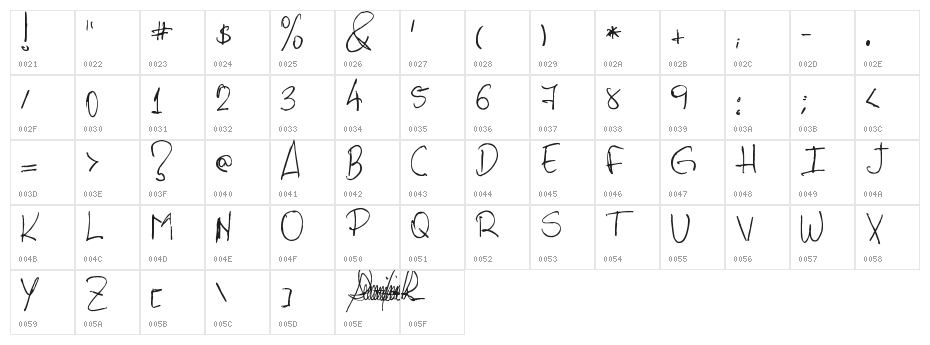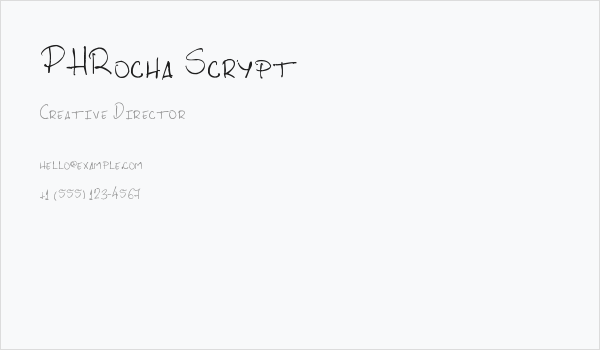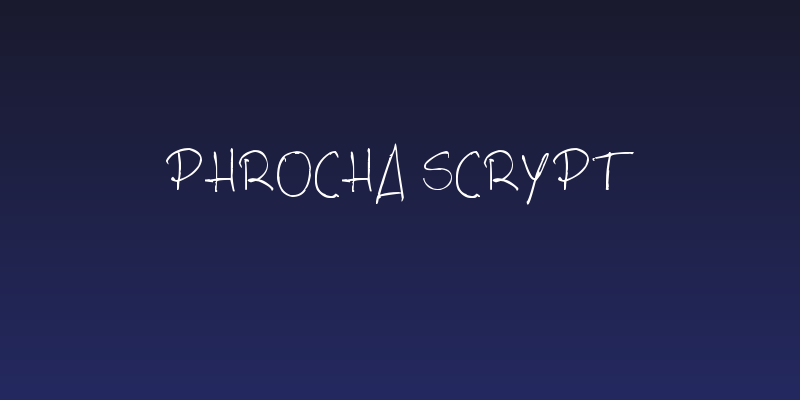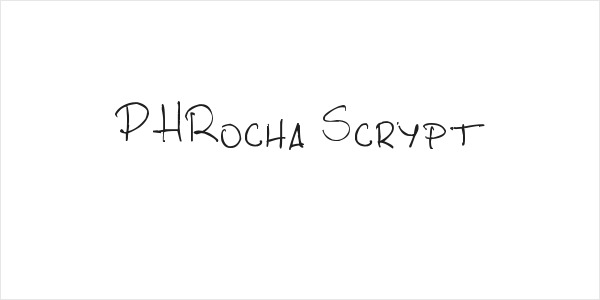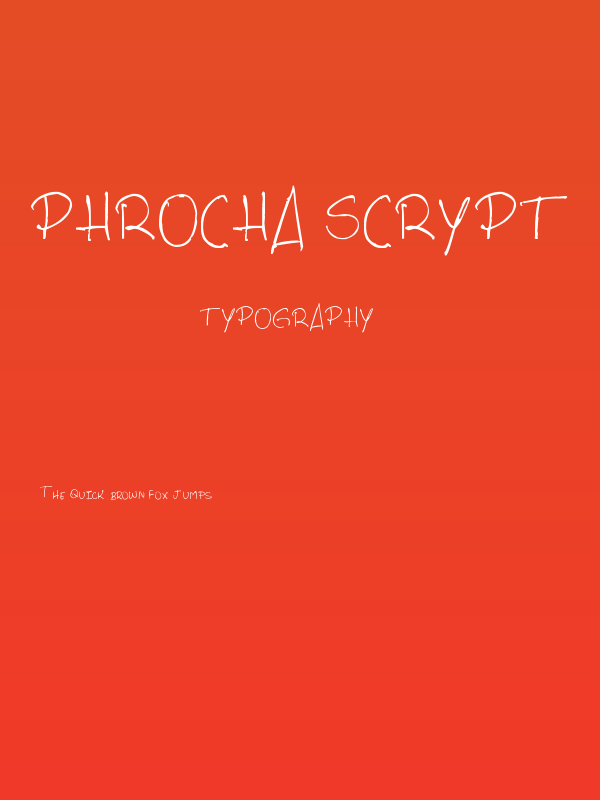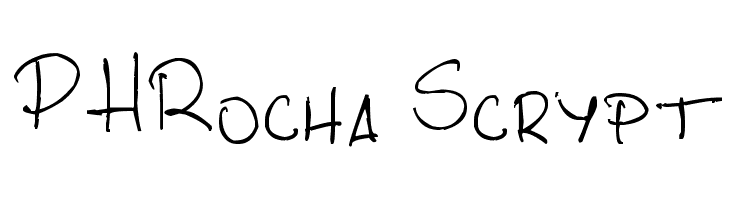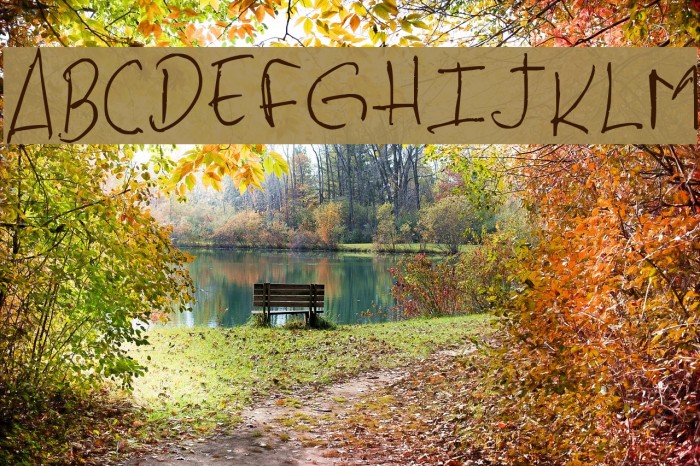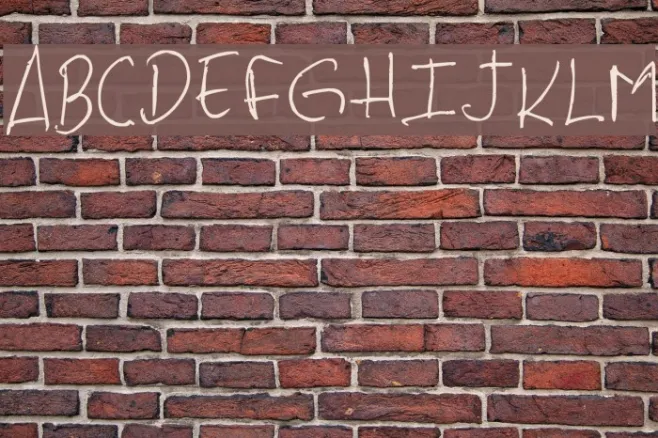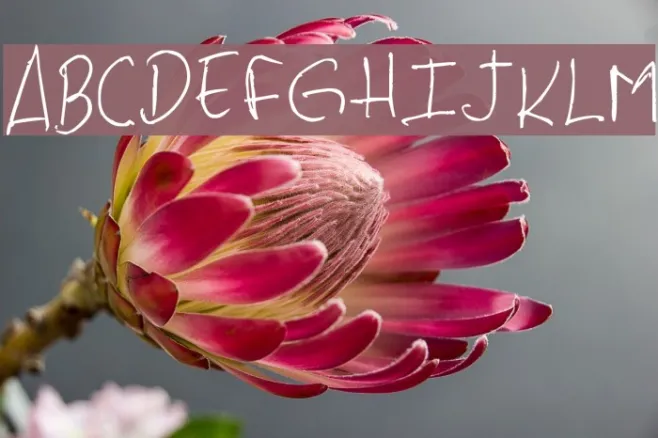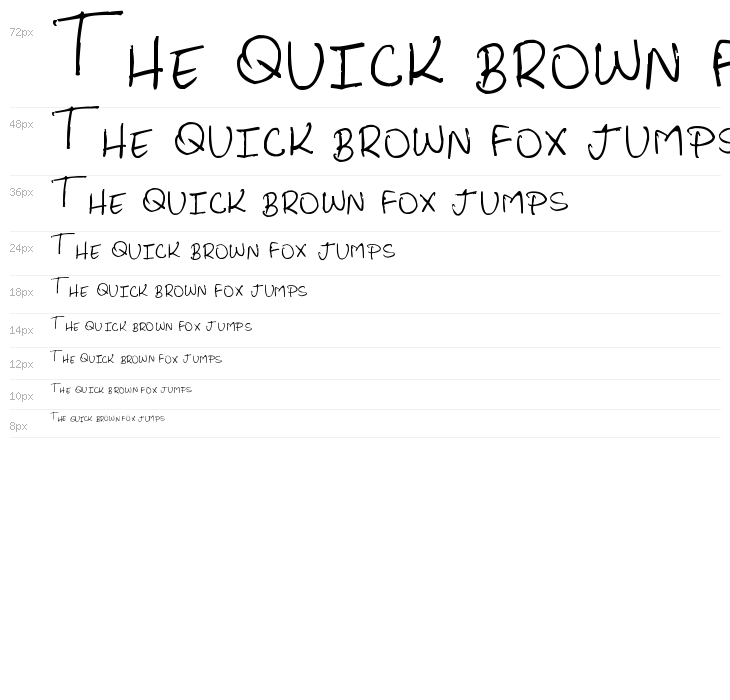
PHRocha Scrypt Font
PHRocha Scrypt Description
This font features a lively, handwritten style with a playful and casual appearance. The letters are slightly irregular, giving it an authentic, hand-drawn feel. The strokes are varied in thickness, adding a dynamic and energetic quality to the text. The uppercase and lowercase letters maintain a consistent style, with rounded edges and a slight slant, enhancing the informal vibe. Numbers and special characters are crafted with the same playful touch, making them blend seamlessly with the alphabet. This font is ideal for projects that require a personal, approachable, and creative touch.
| Use Case | Headlines, Creative projects, Personal branding |
| Proposed Projects | Perfect for greeting cards, invitations, personal blogs, and creative branding projects. |